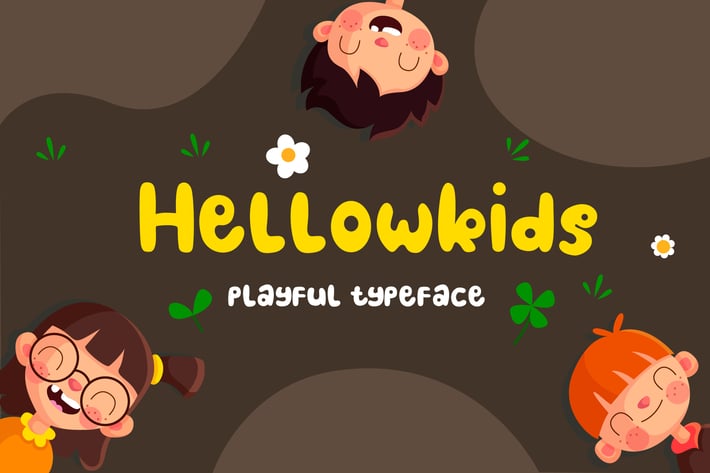
Hellowkids - Fun Children Typeface
Introducing: Hellowkids - Fun Children Typeface! An adorable font that will bring a smile to your face every time you use it. Included is a bonus exclusive alphabet (english letters only), just for fun!